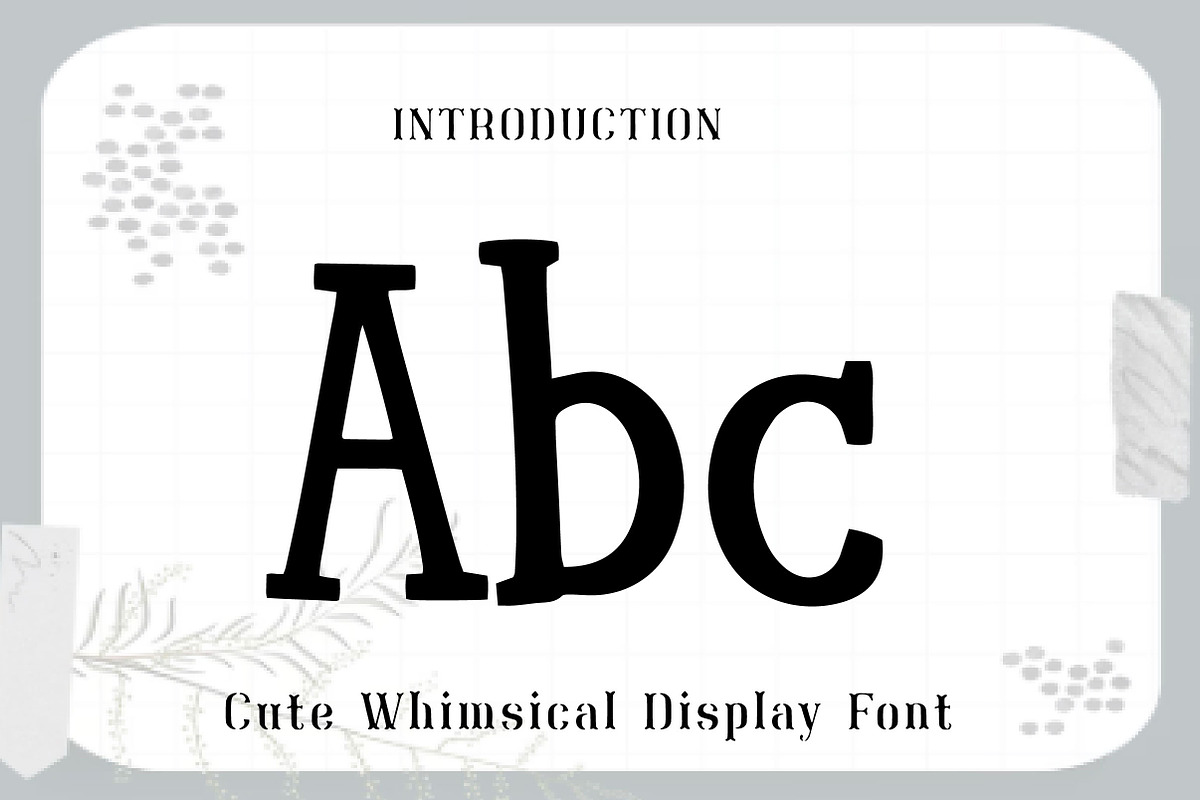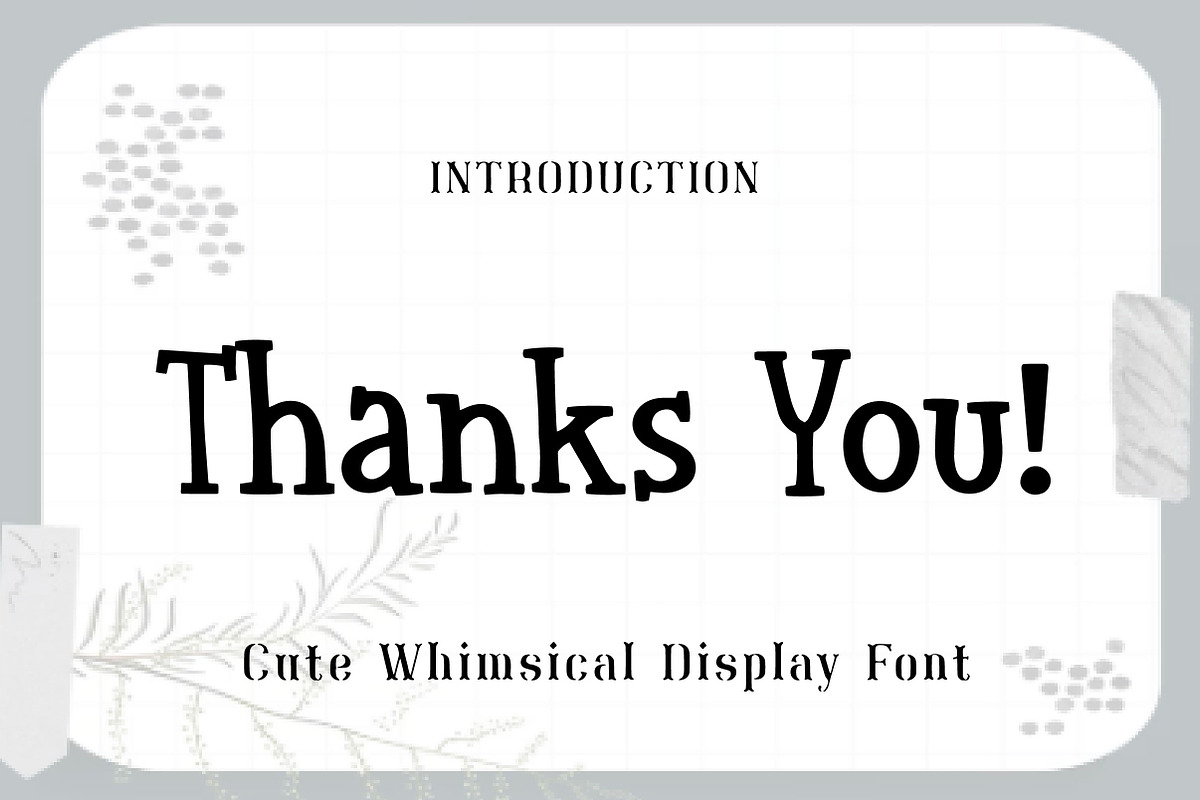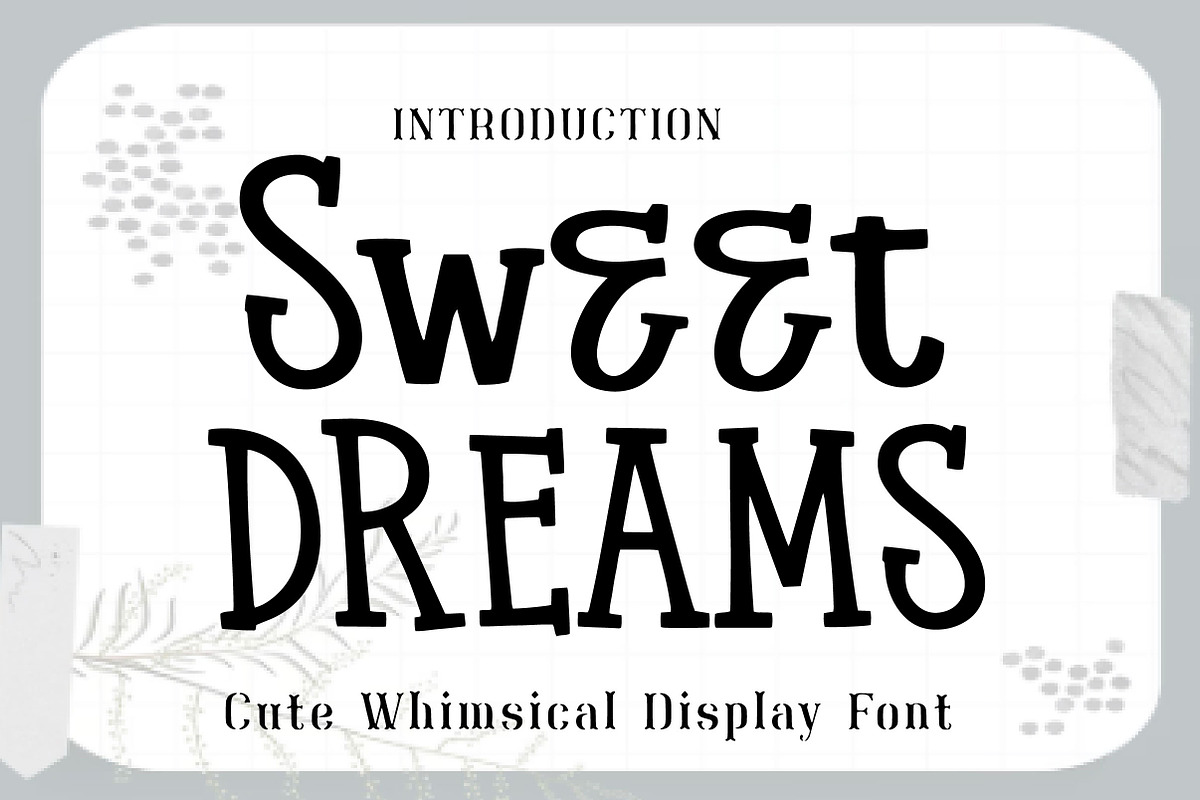
Sweet Dreams
Sweet Dreams – Cute Whimsical Display Font
Sweet Dreams is a cute and whimsical display font with a dreamy, playful, and sweet personality. Its soft decorative letterforms create a magical and charming look that makes every design feel joyful, cozy, and full of imagination.
With its fun and fantasy-inspired style, Sweet Dreams is perfect for children’s designs, nursery projects, bedtime quotes, invitations, greeting cards, book covers, party decorations, printable crafts, and playful branding. It adds a lovely storybook feel that makes your designs look warm, creative, and memorable.
This font is a wonderful choice for designers, crafters, and creators who want a typeface that feels adorable, imaginative, and full of charm. Whether you are designing for kids’ products, dreamy themed projects, or cute handmade creations, Sweet Dreams brings a soft and magical touch to every layout.
Children’s designs
Nursery projects
Bedtime quotes
Invitations
Greeting cards
Book covers
Party decorations
Printable crafts
Playful branding
Cute and whimsical display style
Dreamy and playful personality
Soft decorative letterforms
Perfect for kids and storybook-themed projects
Great for both print and digital designs
Sweet Dreams is a cute and whimsical display font with a dreamy and playful style. Perfect for children’s designs, nursery projects, invitations, greeting cards, book covers, and playful branding, it adds a magical and charming touch to any design.